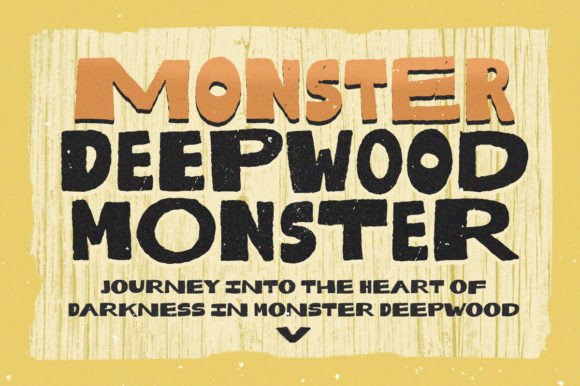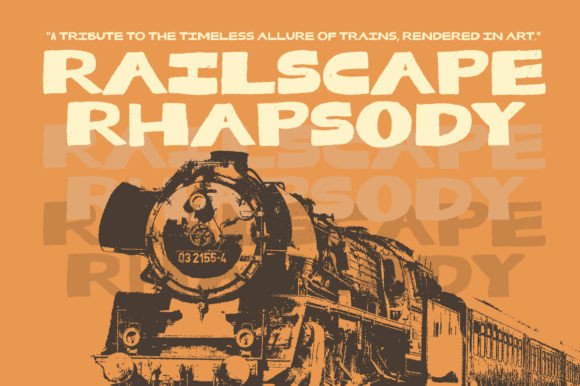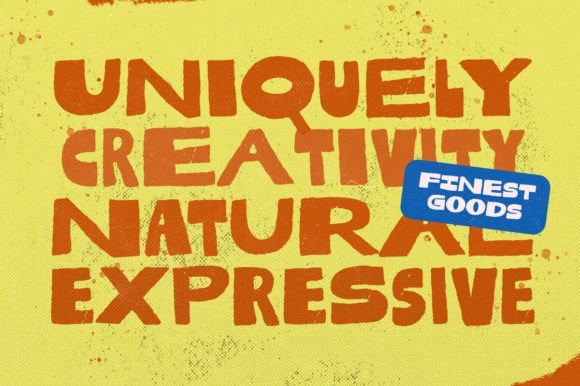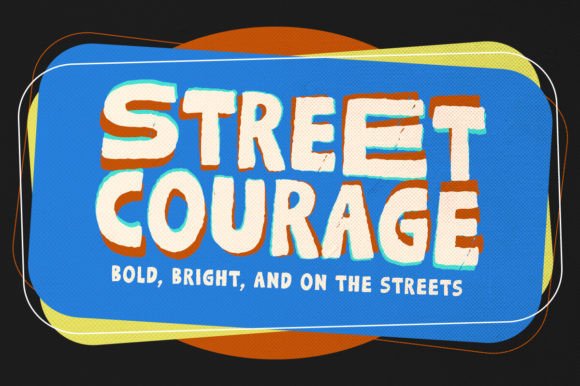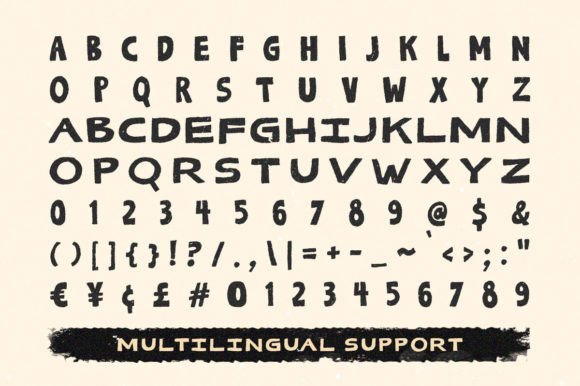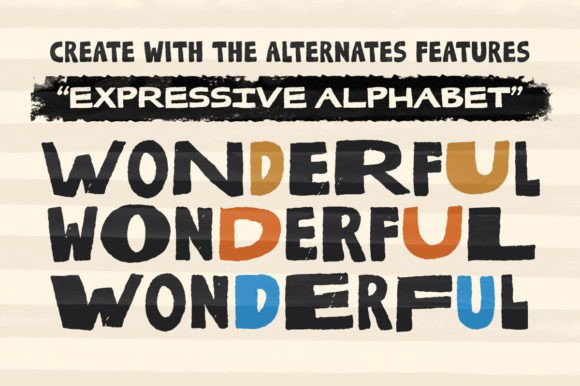
Introduction to Quirked Font
Quirked is a quirky bold font with unique letterform.
You can playaround to fit the form using standard character with alternate characte to create new looks This font perfectly made to be applied especially in logo, and the other various formal forms such as invitations, labels, logos, magazines, books, greeting / wedding cards, packaging, fashion, make up, stationery, novels, labels or any type of advertising purpose.